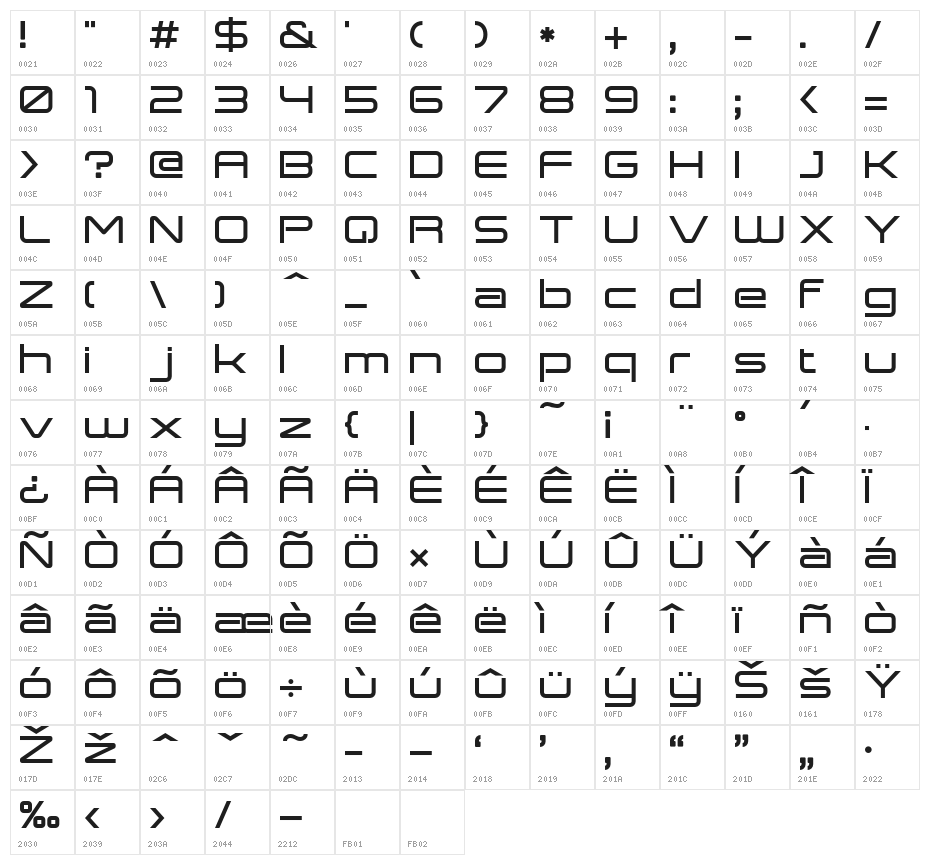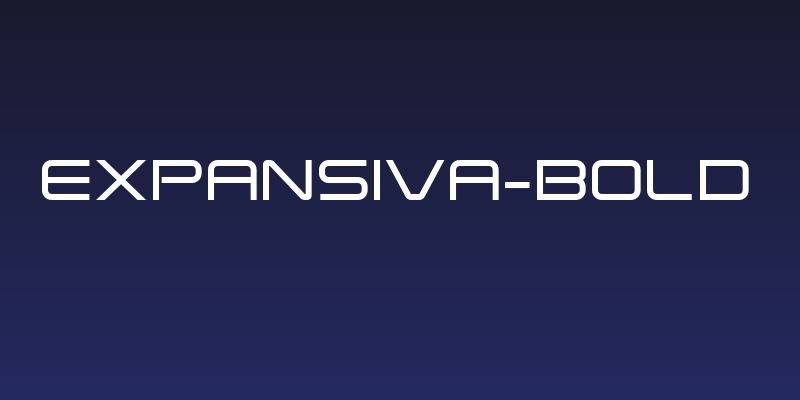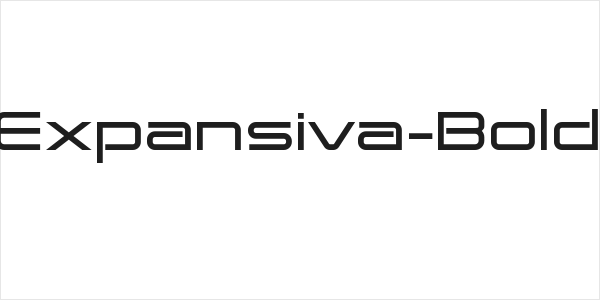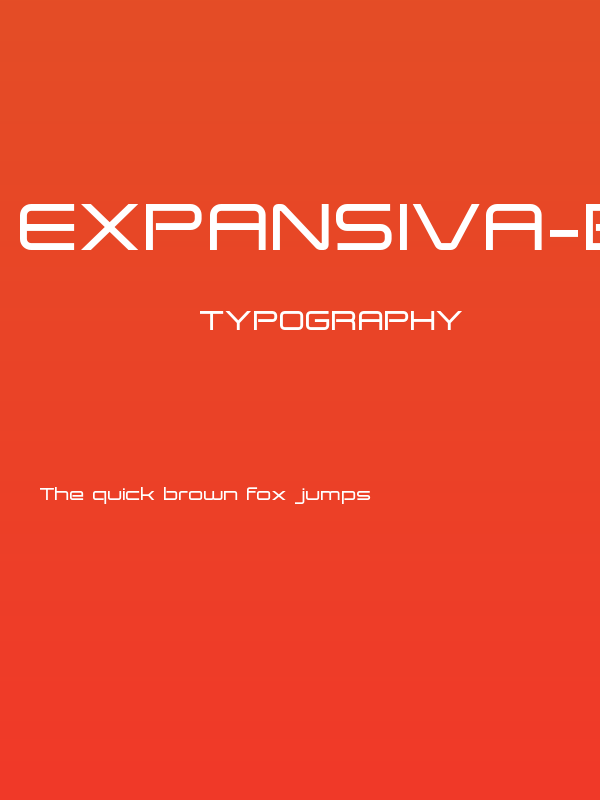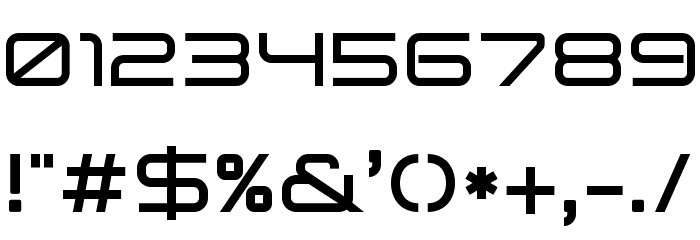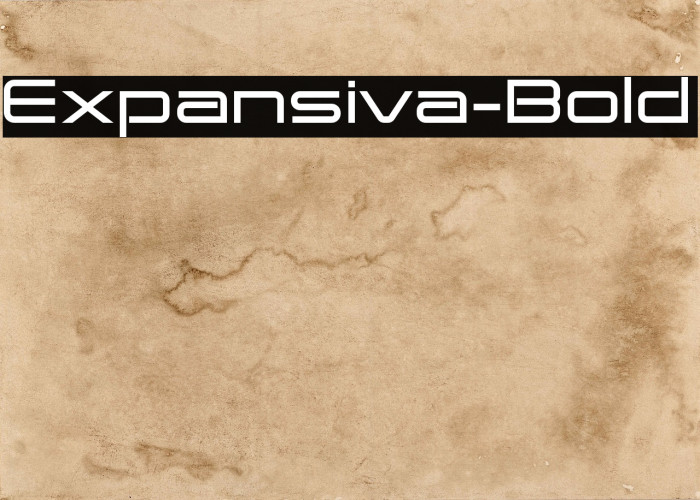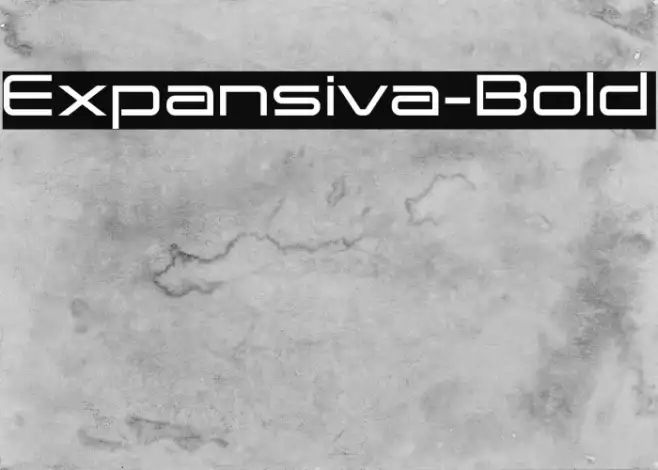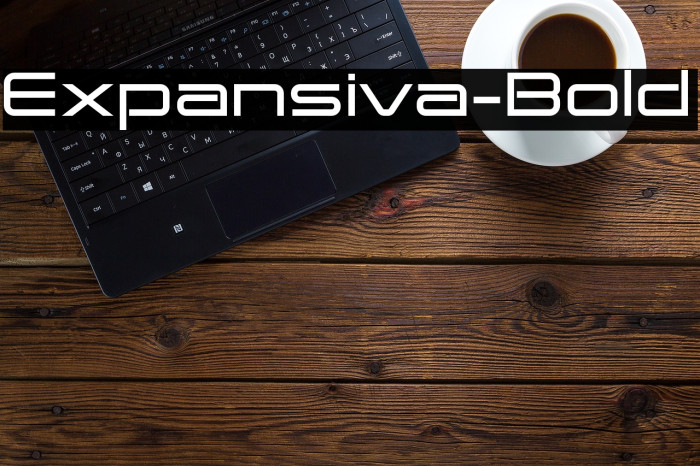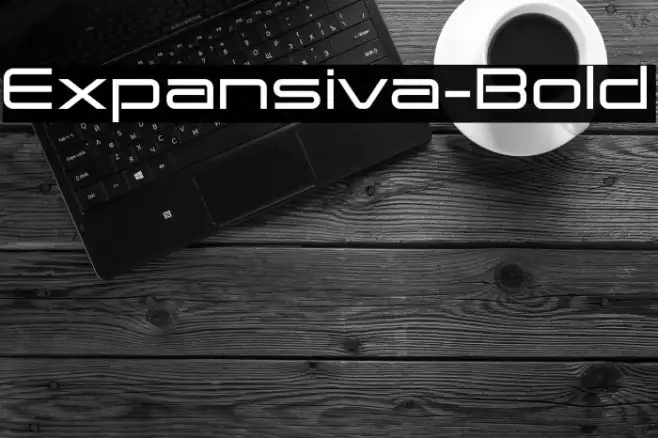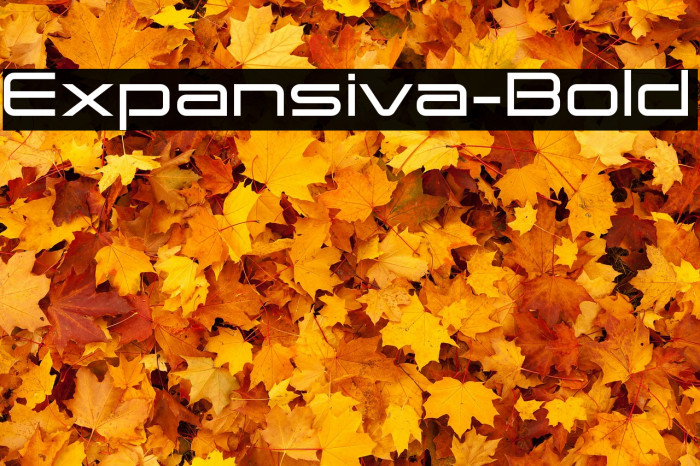
Expansiva-Bold Font
Expansiva-Bold Description
This font exhibits a modern and sleek design with a geometric structure. The characters are bold and have a consistent stroke width, giving it a strong and impactful appearance. The uppercase letters are slightly wider, while the lowercase letters maintain a uniform height, contributing to a balanced look. The numerals are clear and distinct, ensuring readability. Special characters are designed with the same geometric precision, making them fit seamlessly with the rest of the font. Overall, this font is ideal for projects that require a contemporary and professional aesthetic.